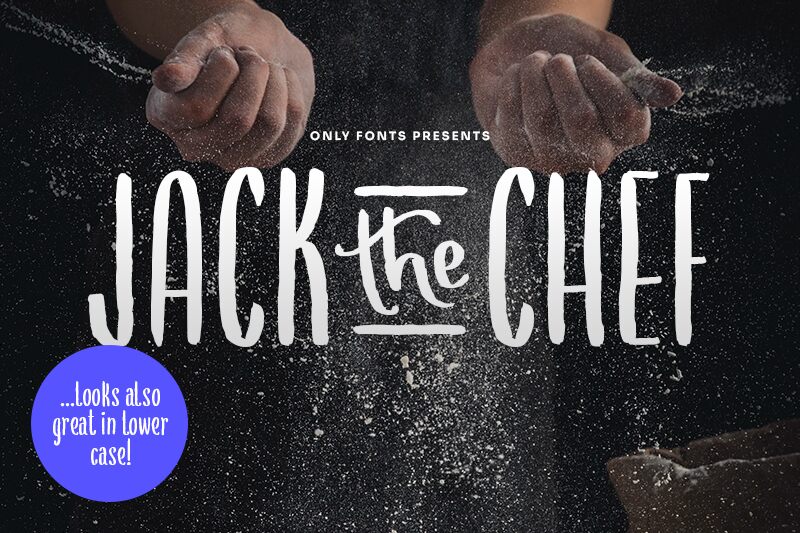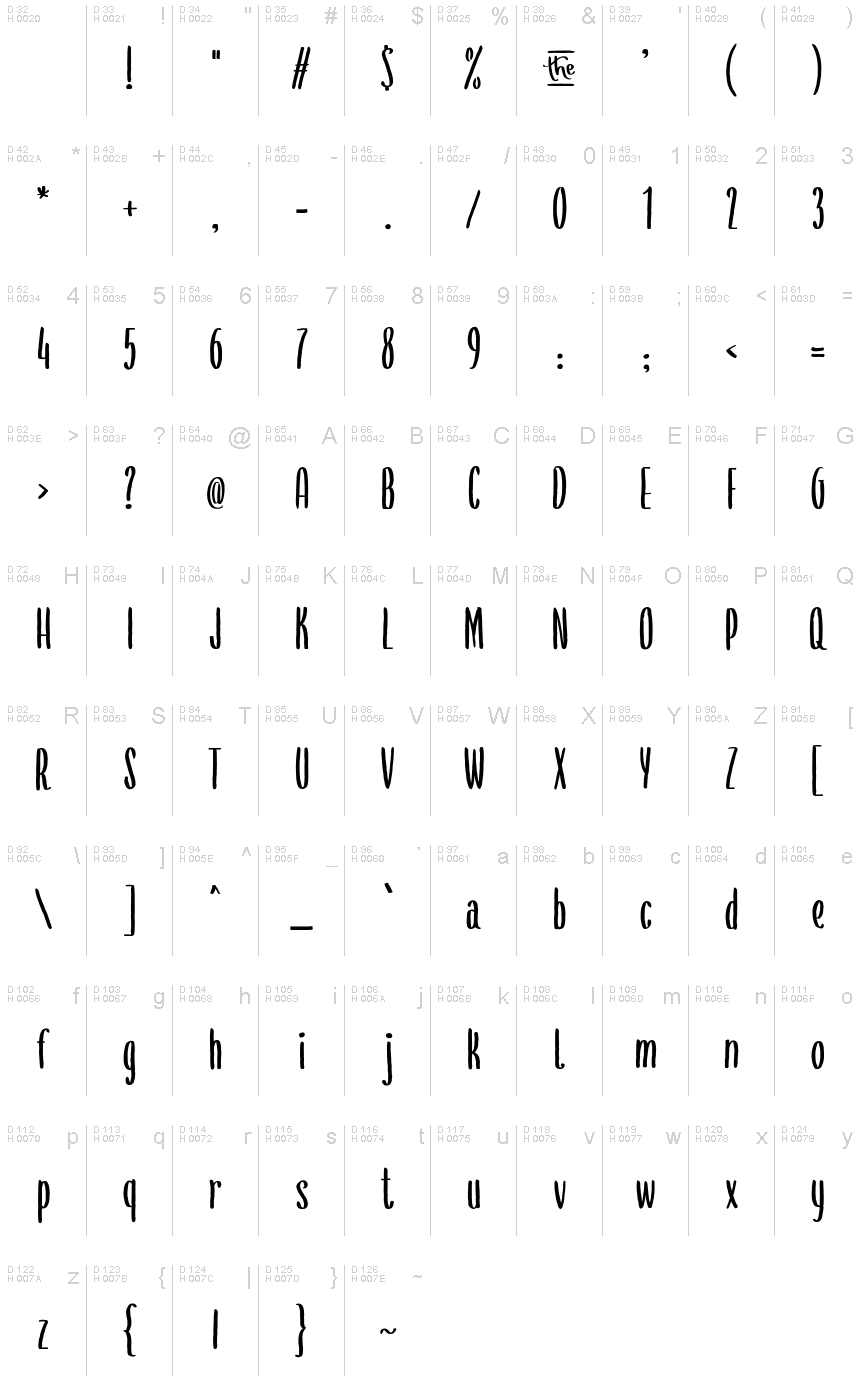
JackTheChef
Jack the Chef is a captivating handwritten font designed by Christoph Dörre of Only Fonts. With its condensed width and bold, expressive strokes, this typeface exudes an irresistible blend of playfulness and confidence. The varying letter forms, seamlessly transitioning between uppercase and lowercase, offer a dynamic and visually engaging aesthetic, ideal for capturing attention and conveying a sense of artisanal flair.
This multipurpose font is a perfect choice for projects requiring a narrow yet impactful typographic solution. Its versatility allows it to shine in a variety of design contexts, from bold headlines to smooth subheadings and fluid body copy. Whether you're crafting a rustic restaurant menu, designing a vibrant food packaging label, or curating an eye-catching social media post, Jack the Chef's distinctive character and adaptability make it a valuable asset in your creative toolkit.